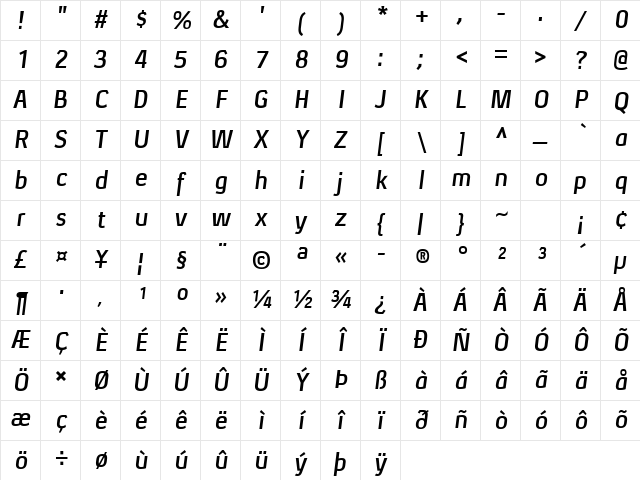
Xenu Bold Italic
Design Context for Xenu
Xenu is a composed and adaptable typeface that performs quietly and consistently across a wide range of design contexts. The slanted form adds forward momentum and visual energy. Its bold stroke weight gives it real presence on the page.